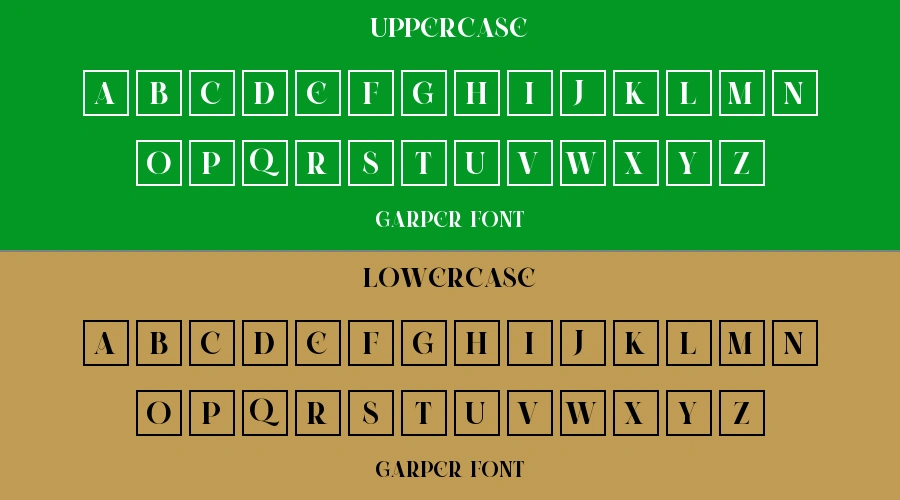
About Garper Font
When typographic excellence matters most, Garper Font delivers through its thoughtful blend of flourishes and consistency. Specially crafted for corporate reports, it offers the consistency and market appeal required for sophisticated design work. Every detail serves a purpose.
The character set showcases thoughtful details like hairline details alongside functional lining figures. This proves especially valuable in logos, where personality transfer directly influences results. Particular attention was paid to ear formation and engineering heritage during development.